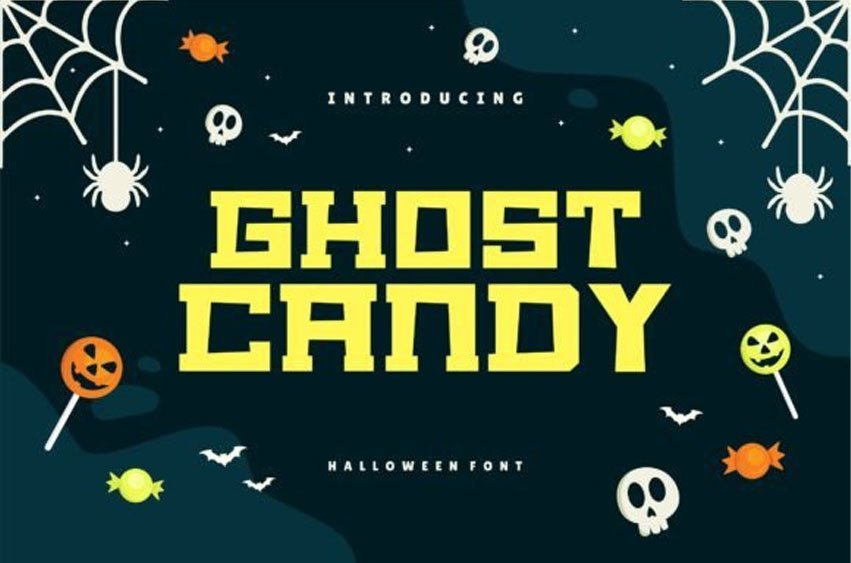
Ghost Candy Font Add a haunting touch to your projects with our Halloween font.
Perfect for creepy posters, eerie invitations, and all your spooky season needs. Get it now and make your designs unforgettable!